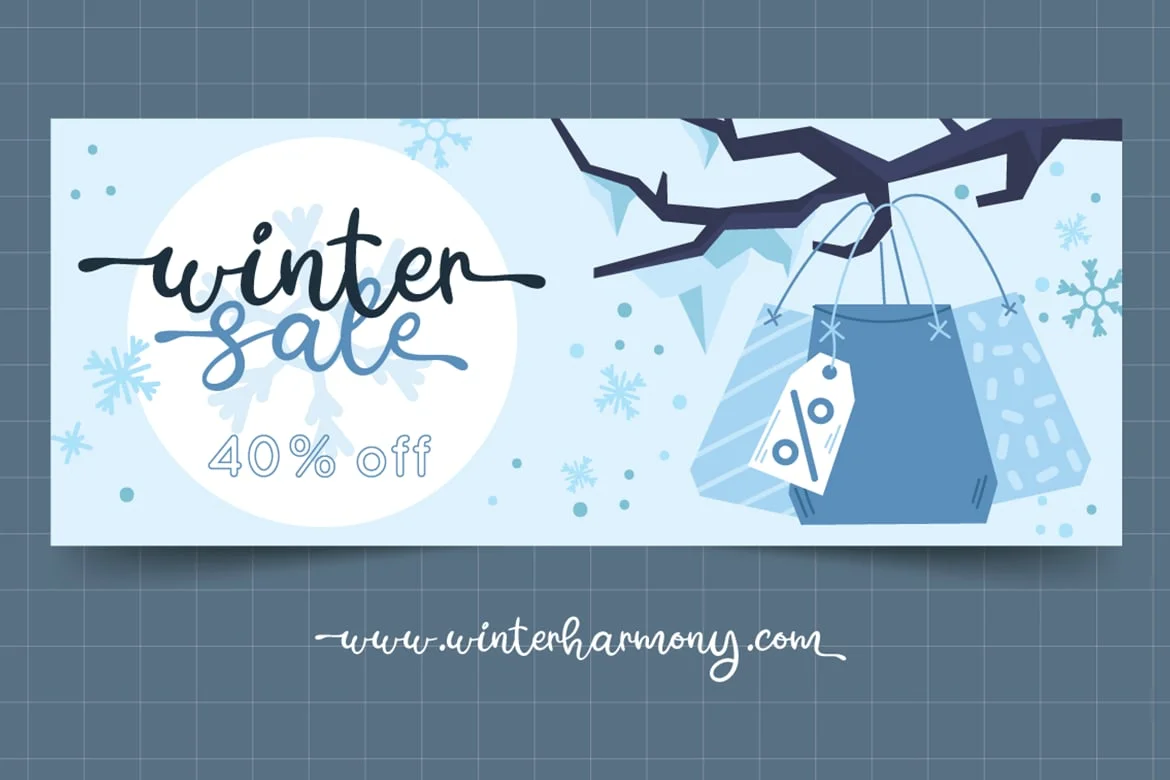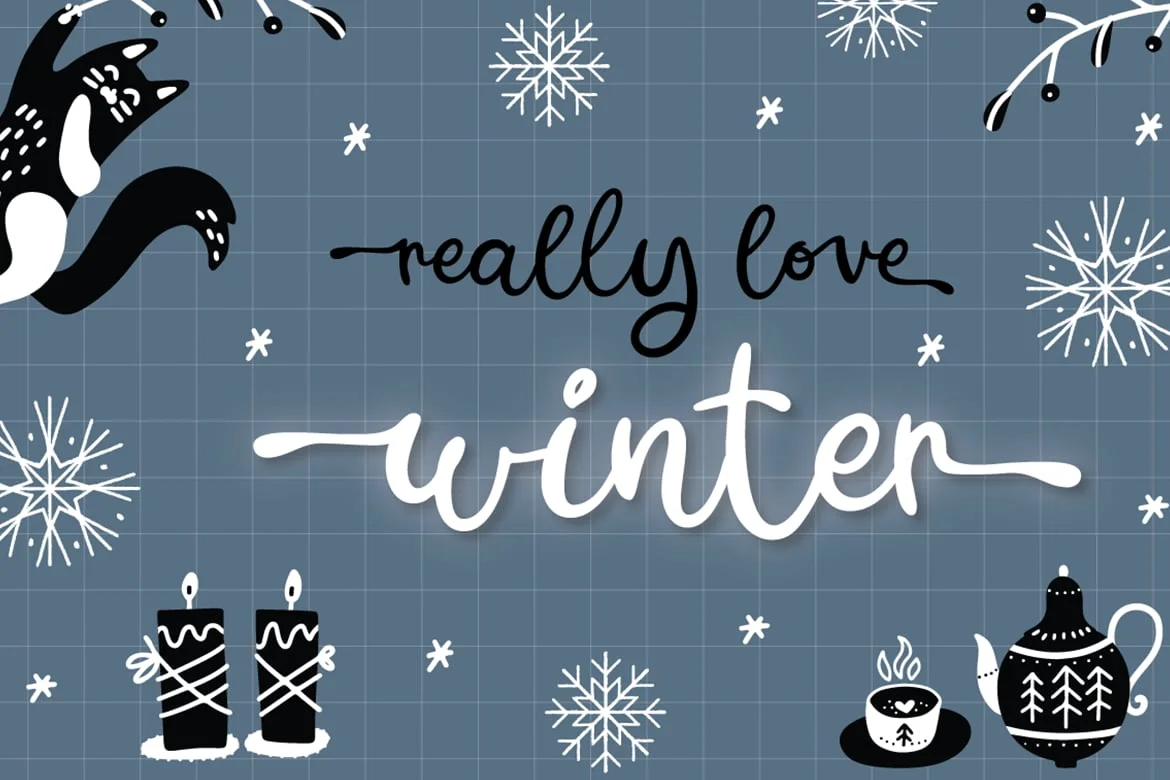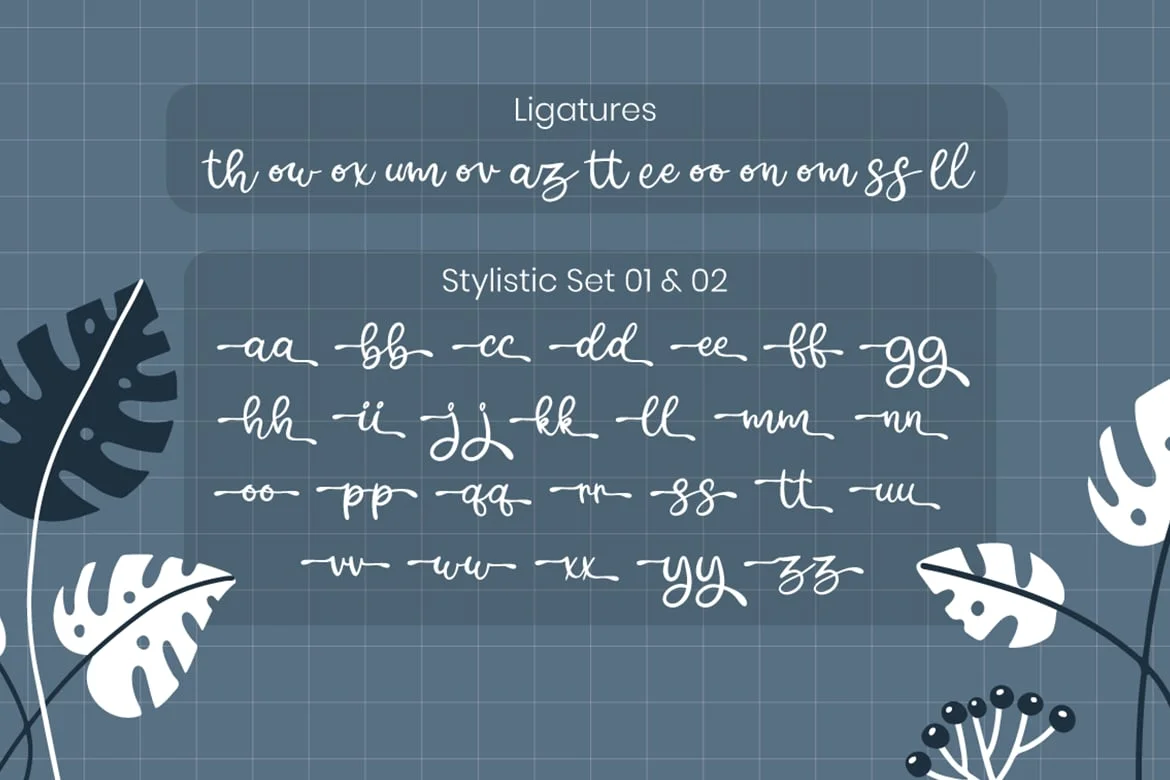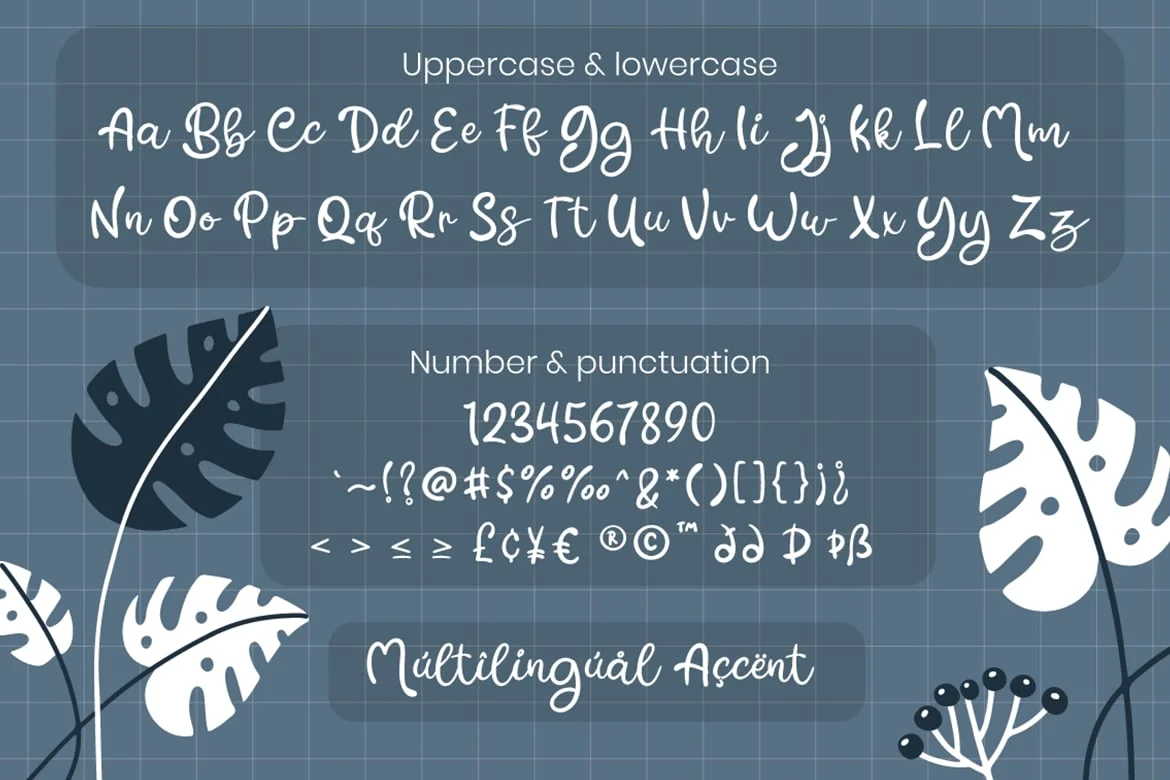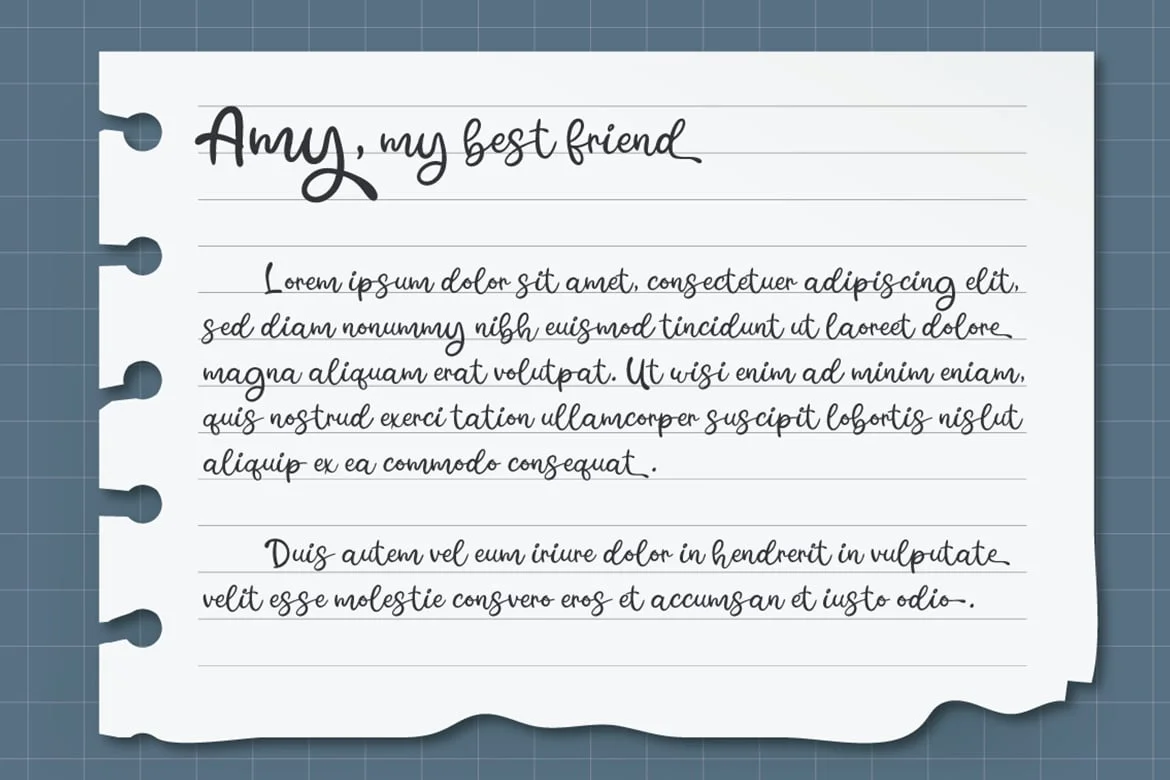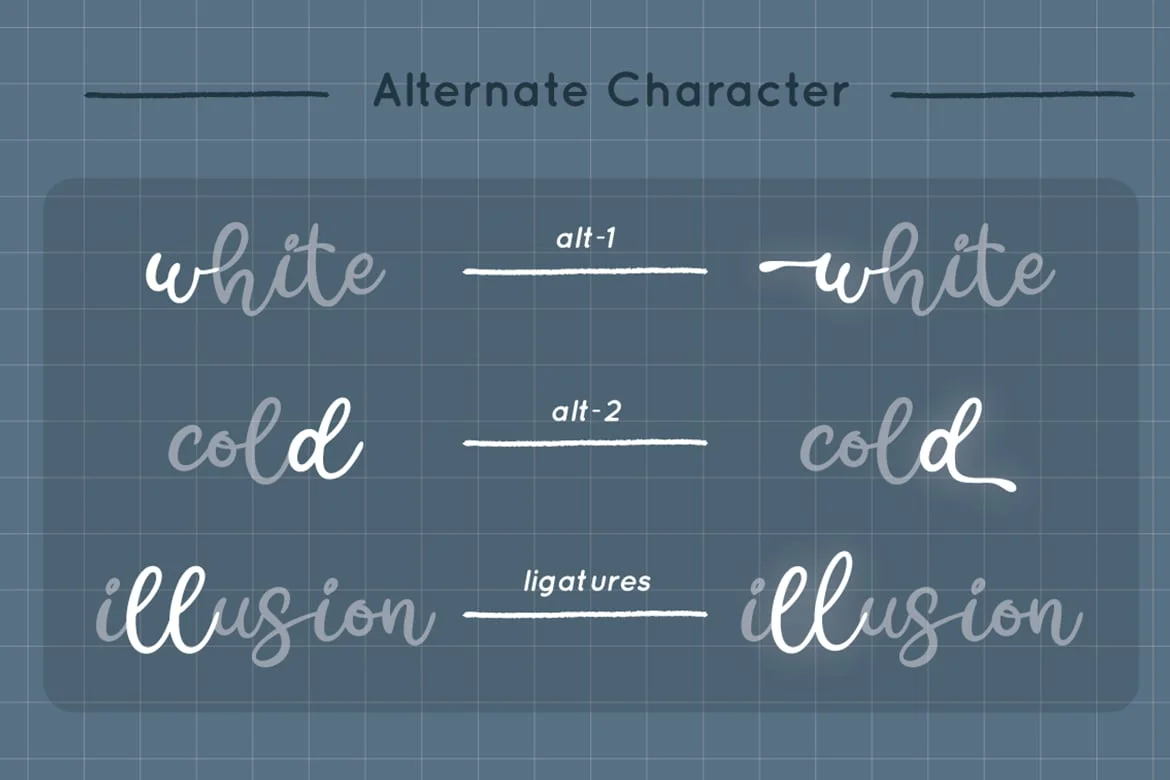
Winter Harmony - Wedding Font
The Winter Harmony - Wedding Font excels in seasonal design applications including winter wedding invitations, holiday celebration branding, cozy venue logos, seasonal product packaging, winter-themed business cards, seasonal portfolios, festive greeting cards, winter social media graphics, snowy event signage, and harmonious marketing materials. Its harmonious script style makes it perfect for projects requiring seasonal elegance that communicates warmth and establishes winter brand positioning with audiences seeking cozy wedding experiences and seasonal sophistication.
What makes the Winter Harmony - Wedding Font genuinely exciting is its exceptional ability to capture the serene beauty and harmonious spirit of winter celebrations through gracefully crafted letterforms. The font features flowing, seasonal strokes with harmonious flourishes and winter-inspired proportions that create a distinctly cozy appearance. Each character displays remarkable attention to seasonal detail with gentle curves, harmonious connections, and peaceful spacing that give text a warm, hand-lettered quality. The font's harmonious character and seasonal rhythm create an atmosphere of winter tranquility while maintaining elegant sophistication and celebration authenticity.
The Winter Harmony - Wedding Font family typically includes regular weight with extensive character coverage, featuring uppercase and lowercase letters, numerals, punctuation marks, and international characters. The typeface often incorporates stylistic alternates, contextual ligatures, and seasonal swashes that enhance its signature harmony. These additional elements provide designers with creative flexibility to customize text appearance and achieve more natural-looking seasonal handwriting that reflects the font's harmonious and winter character.
This harmonious signature font distinguishes itself through its remarkable balance of seasonal charm and timeless elegance. Unlike harsh or aggressive fonts that lack winter warmth, Winter Harmony - Wedding Font embraces the power of seasonal design to create cozy connections with wedding audiences. The font's harmonious character makes it essential for winter wedding planners, seasonal celebration brands, and cozy event businesses where creating warm winter experiences and harmonious memories is fundamental to success in seasonal wedding markets.
The Winter Harmony - Wedding Font offers designers an exceptional opportunity to incorporate seasonal elegance into their winter projects. From cozy winter wedding venues to seasonal celebration brands, this font delivers the harmonious signature aesthetic that resonates with couples seeking warm and peaceful winter wedding experiences. Its seasonal appeal ensures your designs communicate winter harmony while the signature styling adds distinctive personality that reflects seasonal romance and winter sophistication in any application requiring harmonious typography solutions.